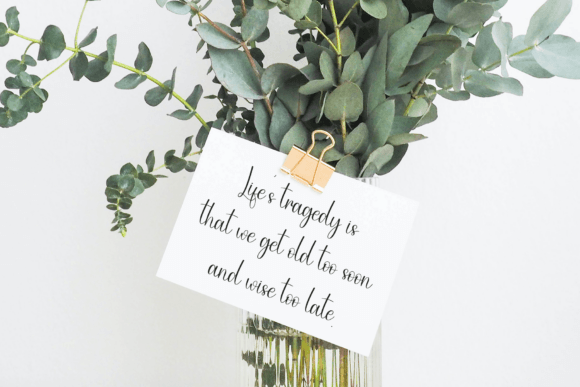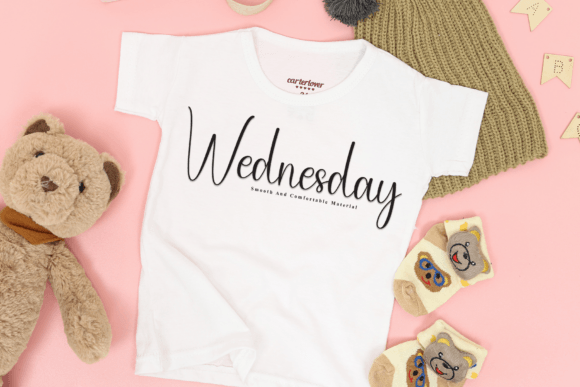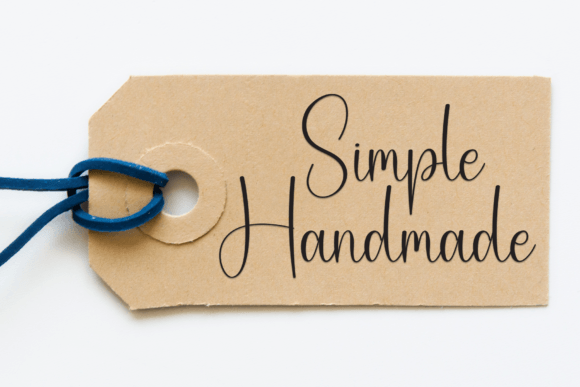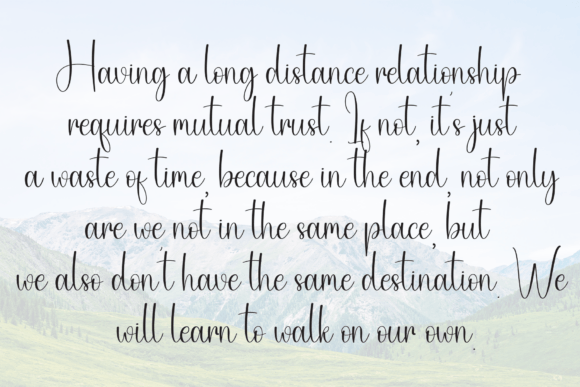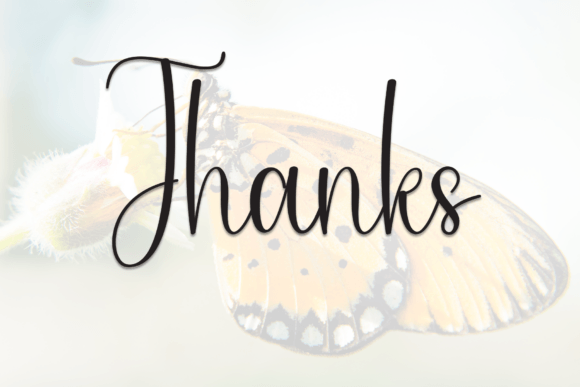
Introducing Butterfly Font: The Sweet and Friendly Handwritten Font for Your Creative Projects
Are you a designer, crafter, or DIY enthusiast looking for a font that can add a touch of sweetness and friendliness to your projects? Look no further than Butterfly Font! This beautiful handwritten font is perfect for a wide range of designs, from invitations and greeting cards to branding and packaging. In this article, we’ll take a closer look at the Butterfly Font and explore its unique features, uses, and benefits.
What is Butterfly Font?
Butterfly Font is a sweet and friendly handwritten font that is designed to bring a personal touch to your designs. Its natural and unique style makes it incredibly fitting to a large pool of designs, from whimsical and playful to elegant and sophisticated. The font’s delicate and cursive lines evoke a sense of warmth and approachability, making it perfect for projects that require a human touch.
Unique Features of Butterfly Font
So, what sets Butterfly Font apart from other fonts? Here are some of its unique features:
- Handwritten style: Butterfly Font is a handwritten font that is designed to look like it was written with a pen or pencil. This gives it a personal and organic feel that is hard to achieve with digital fonts.
- Natural and unique: The font’s natural and unique style makes it incredibly versatile and adaptable to different designs and contexts.
- Delicate and cursive lines: The font’s delicate and cursive lines add a touch of elegance and sophistication to your designs.
- Wide range of uses: Butterfly Font can be used for a wide range of projects, from invitations and greeting cards to branding and packaging.
Uses of Butterfly Font
Butterfly Font is a versatile font that can be used for a wide range of projects, including:
- Invitations and greeting cards: The font’s sweet and friendly style makes it perfect for invitations and greeting cards, such as wedding invitations, birthday cards, and holiday greetings.
- Branding and packaging: Butterfly Font can be used for branding and packaging projects, such as labels, stickers, and product packaging.
- Digital and print designs: The font can be used for both digital and print designs, including social media graphics, blog posts, and print materials like brochures and flyers.
- Crafting and DIY projects: Butterfly Font is also perfect for crafting and DIY projects, such as scrapbooking, journaling, and handmade cards.
Benefits of Using Butterfly Font
So, why should you use Butterfly Font for your projects? Here are some benefits:
- Adds a personal touch: The font’s handwritten style adds a personal touch to your designs, making them more relatable and engaging.
- Increases creativity: Butterfly Font’s unique and natural style can inspire creativity and help you come up with new and innovative design ideas.
- Versatile and adaptable: The font’s versatility and adaptability make it easy to use for a wide range of projects and contexts.
- Easy to read and understand: The font’s clear and legible lines make it easy to read and understand, even at small sizes.
In conclusion, Butterfly Font is a sweet and friendly handwritten font that is perfect for designers, crafters, and DIY enthusiasts. Its natural and unique style makes it incredibly fitting to a large pool of designs, and its delicate and cursive lines evoke a sense of warmth and approachability. With its wide range of uses and benefits, Butterfly Font is a great addition to any design project. So why not give it a try and see how it can elevate your designs?
The only limit is your imagination! With Butterfly Font, you can create beautiful and unique designs that reflect your personality and style. So don’t be afraid to experiment and try new things – the possibilities are endless!